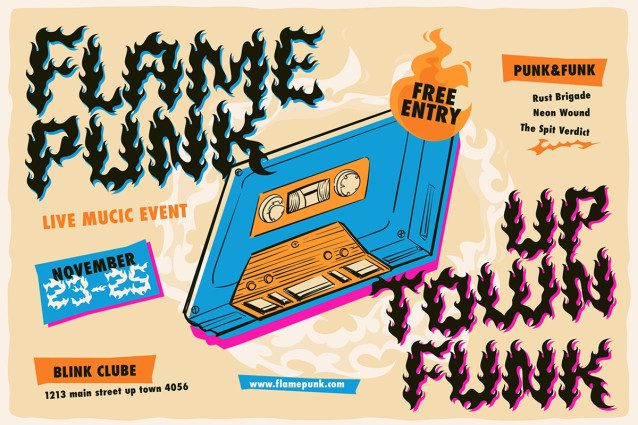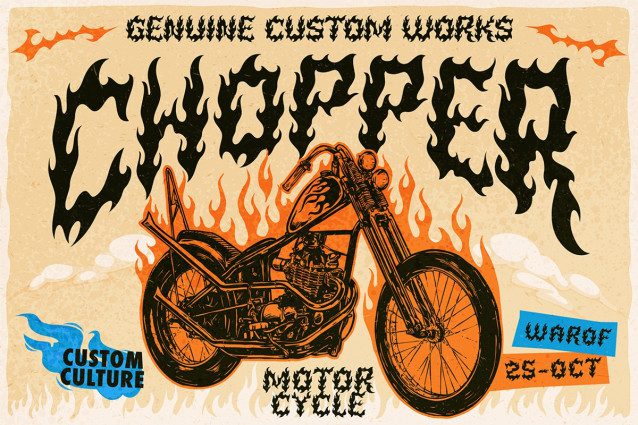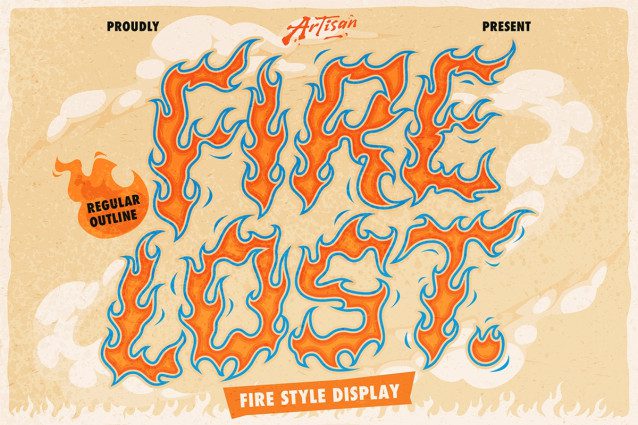
Firelost Font
Firelost Font a wild and blazing display font that brings instant heat to your designs! Inspired by rock posters, vintage comics, and that unstoppable fiery spirit, this font is made to stand out and scream “turn up the volume!”
Whether you’re designing band merch, retro covers, extreme sport posters, or simply want your text to look like it’s on fire.
It comes in Regular and Outline styles, so you can mix, match, and create explosive combinations that’ll light up your design world. Let’s face it, sometimes your creativity just needs a little chaos and flame to burn brighter.
So go ahead, set your next project on fire with Fire Lost!